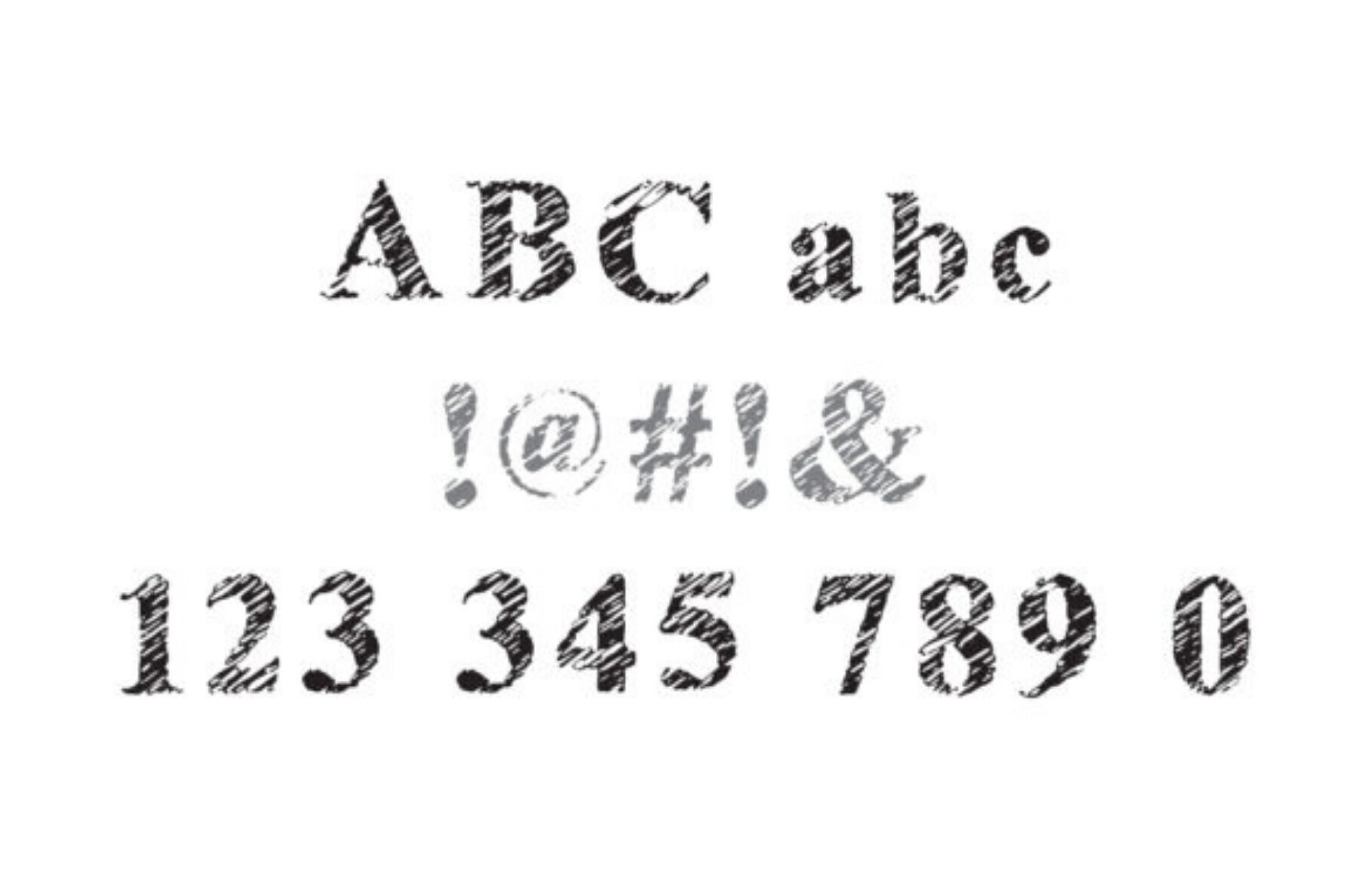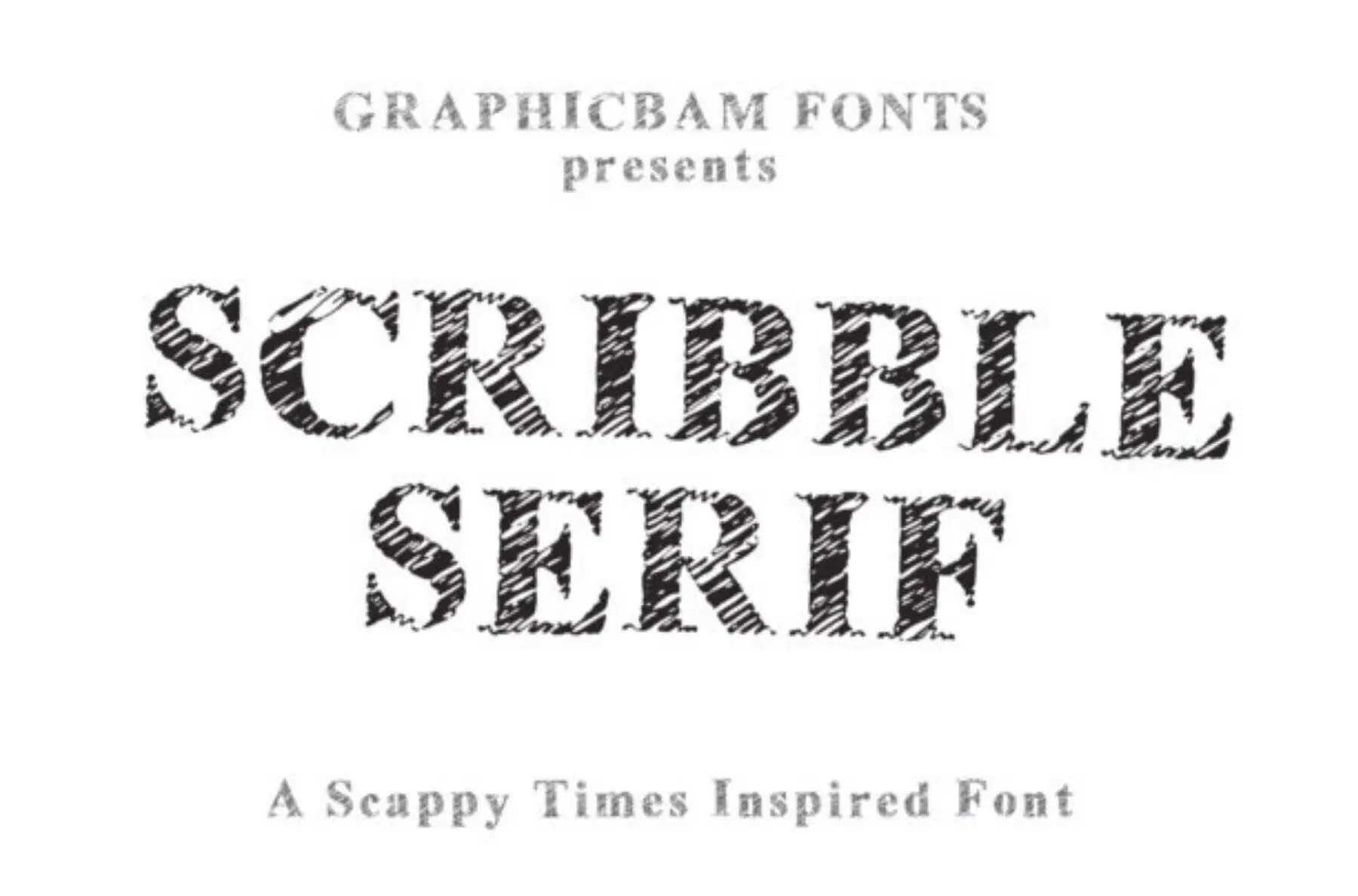
Scribble Serif
Scribble Serif offers a unique twist on the classic Times New Roman. Its bold, rough-lettered design adds a handmade touch to your text, turning any project into a statement piece. Whether you're creating posters, flyers, or print materials, this font introduces an eye-catching dynamic that stands out in any setting.Scribble Serif: Bold with Character
Perfect for Creative Projects